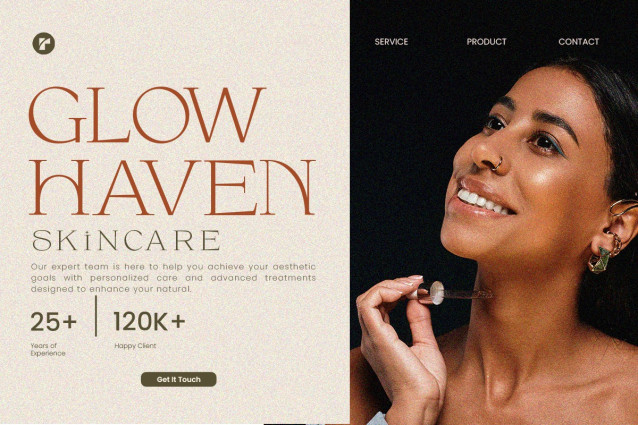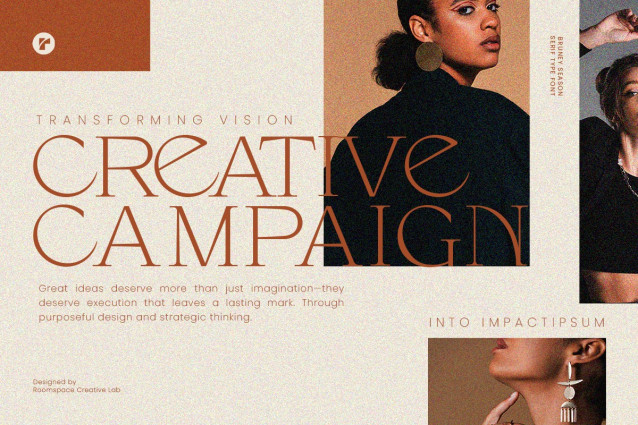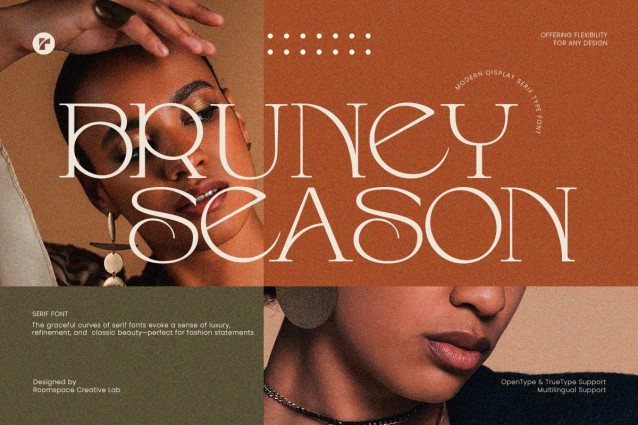
Bruney Season Font
Bruney Season Font, a stunning serif display font that combines timeless elegance with a modern aesthetic. Designed to captivate, this font showcases graceful curves and unique letterforms, making it the perfect choice for fashion branding, editorial design, wedding invitations, logos, and high-end projects.
Features:
Elegant serif display font with stylish curves Perfect for fashion branding, logos, editorial designs, and wedding invitations Compatible with OpenType and TrueType formats for versatile usage Multilingual support with a wide range of international characters This font is ideal for anyone looking for an elegant serif font with a modern and aesthetic appeal. Whether you’re crafting a bold logo or delicate wedding invitation, Bruney Season offers luxury vibes and creative typography that will elevate your projects to the next level.
With its refined aesthetic, Bruney Season suits various applications, including fashion branding, editorial layouts, and high-end designs.
Why Choose Bruney Season? Unique Serif Type Font: Offers a creative and modern take on classic serif styles. Versatile Applications: Perfect for logos, invitations, editorial designs, and more. Stylish Aesthetic: Adds sophistication and charm to your projects.